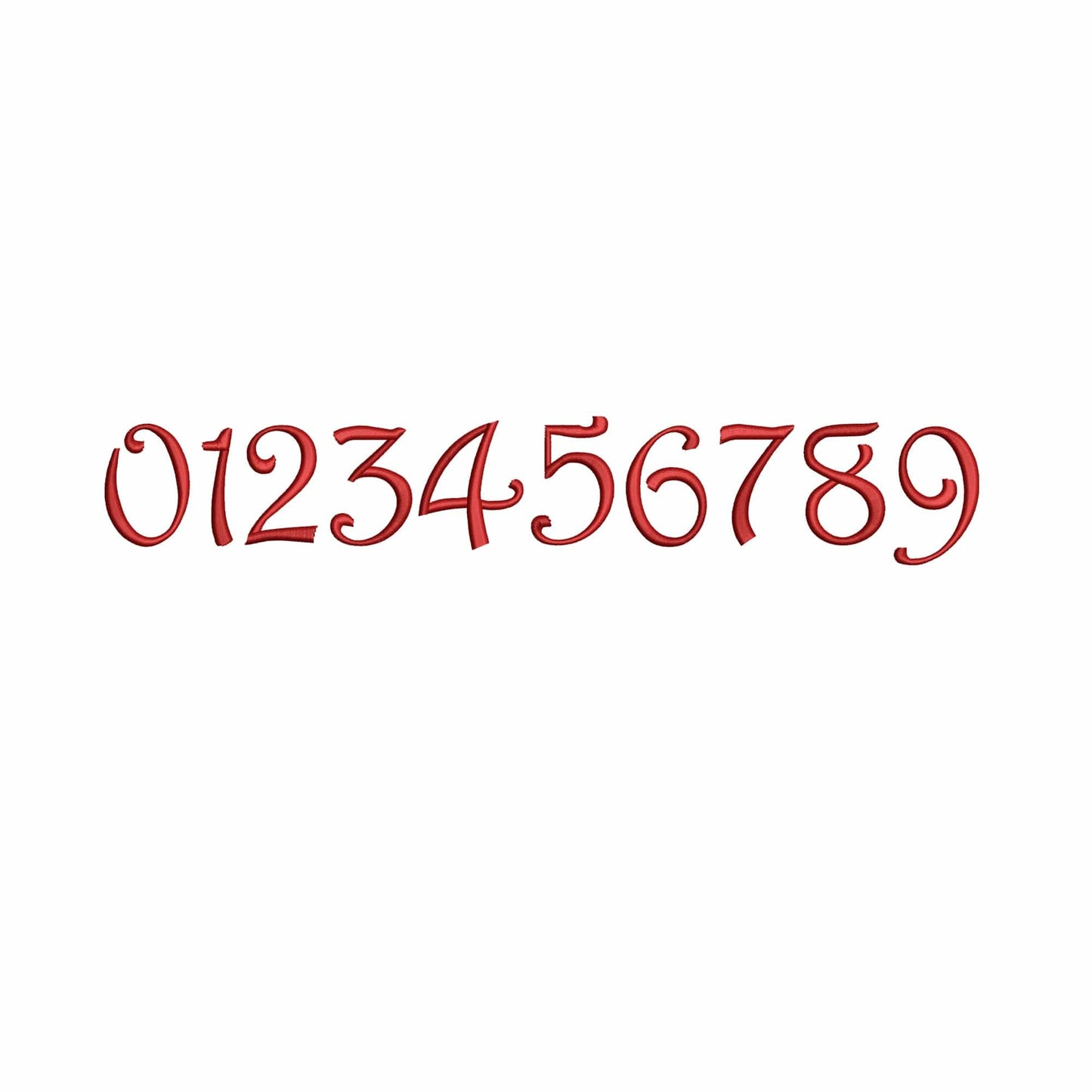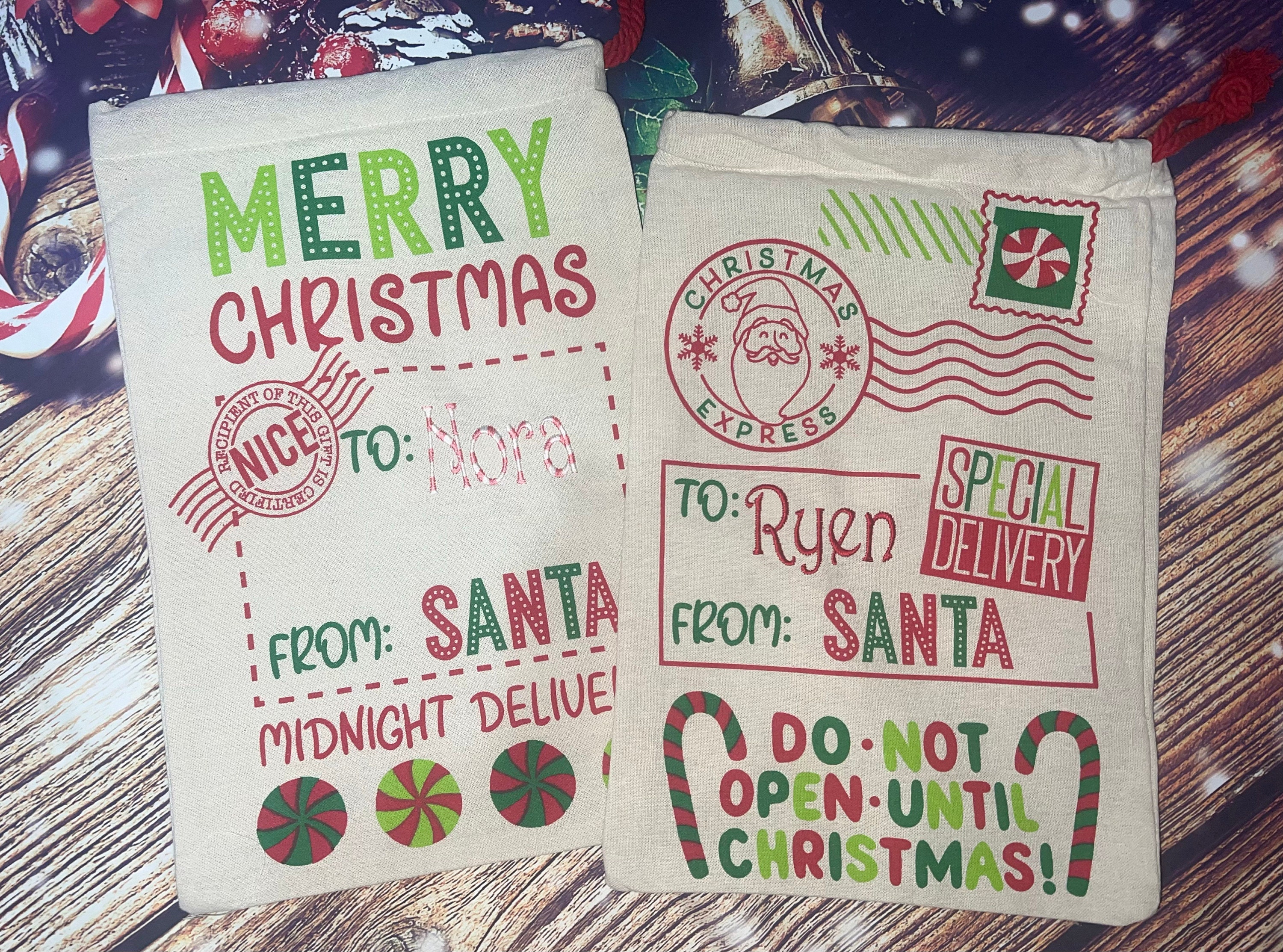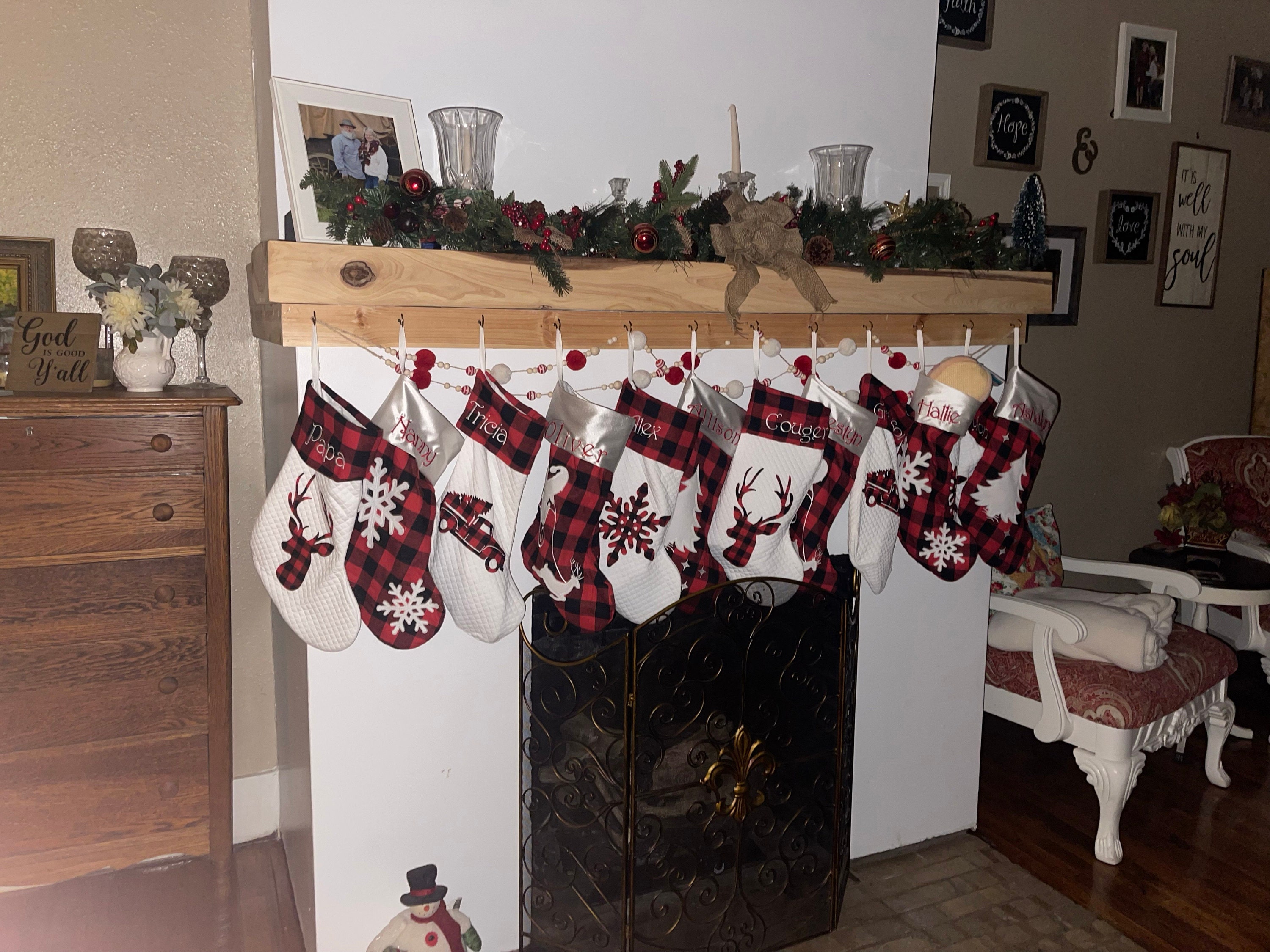
Santa Express - Embroidery font
• Included: A-Z (uppercase), a-z (lowercase), 0-9 (numbers)
This Christmas machine embroidery font works well for holiday shirts, stockings, towels, gifts, and festive personalized embroidery.
A strong choice for holiday makers who want playful seasonal lettering for Christmas projects and cheerful gift stitching.